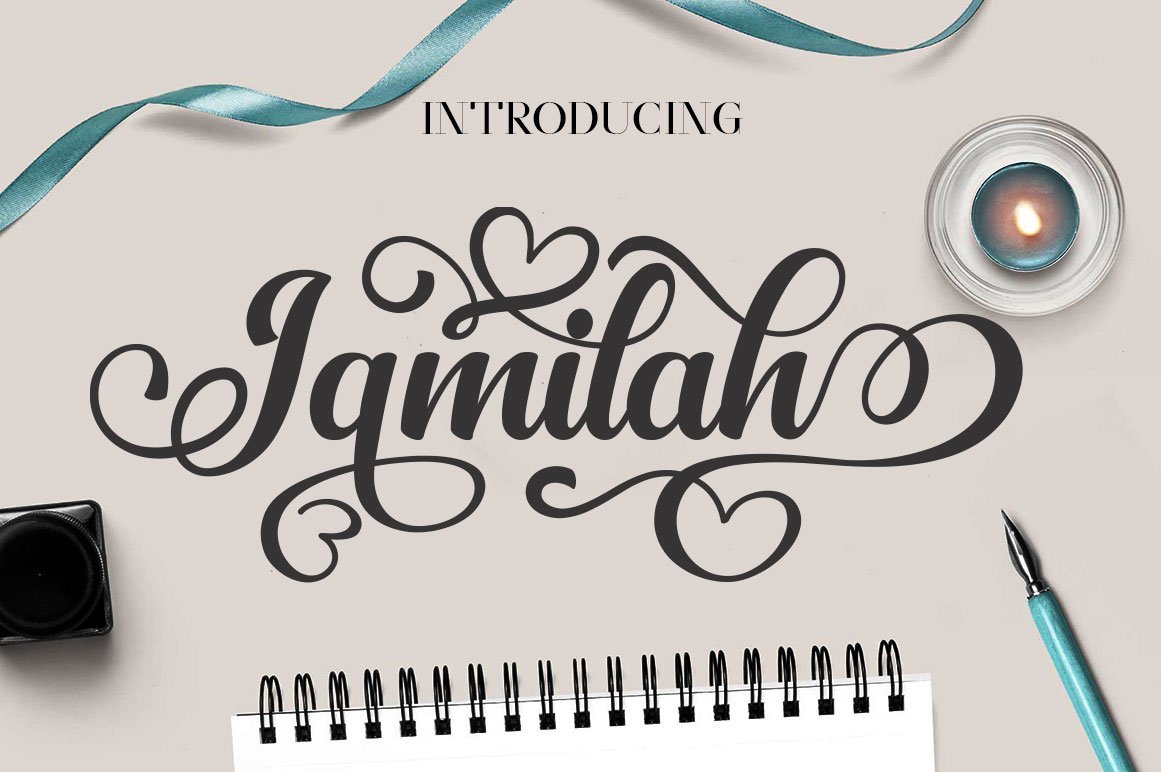
Jamilah Font
Jamilah Font is perfect for elegant wedding invitations, sophisticated greeting cards, luxury brand signatures, feminine blog headers, boutique logos, personal stationery design, cultural publications, and refined calligraphic applications.
Jamilah Font is exciting because it embodies graceful sophistication with flowing letterforms and elegant character details that create intimate personal connection while maintaining exceptional readability. Its refined personality adds warmth and cultural authenticity to any design application requiring sophisticated elegance and timeless appeal.
Jamilah Font family includes regular weight with stylistic alternates and elegant variations, providing designers with comprehensive options for creating sophisticated typography solutions that project cultural refinement and personal distinction.
Jamilah Font Free Download provides access to premium typography that establishes cultural sophistication and elegant authenticity. This distinguished typeface demonstrates exceptional craftsmanship through its graceful character construction and balanced proportions that enhance brand prestige while maintaining sophisticated readability. The font's elegant character makes it particularly suitable for cultural institutions, luxury brands, wedding professionals, and boutique businesses seeking to establish refined visual identity that resonates with audiences appreciating cultural elegance and personal sophistication.
Design professionals consistently choose Jamilah Font for projects requiring cultural authenticity and elegant appeal. Its sophisticated character works magnificently in cultural events, luxury hospitality venues, boutique branding, and upscale marketing campaigns where cultural refinement and elegant personality drive audience engagement. The font's graceful nature creates memorable brand experiences that communicate heritage and cultural distinction.
The Jamilah Font download package includes stylistic alternates, elegant variations, and cultural symbols that enhance its sophisticated appeal and design versatility. This comprehensive collection ensures professional results in refined design projects requiring authentic elegant typography. The font performs exceptionally across both digital and print applications where its graceful details and sophisticated proportions create significant cultural value and elegant distinction.
Creative teams appreciate Jamilah Font's ability to communicate cultural authenticity and elegant sophistication in competitive luxury markets. Its refined styling transcends contemporary design trends while maintaining the grace required for cultural positioning, making it an essential tool for organizations seeking to establish lasting cultural connections through superior elegant typography and exceptional sophisticated communication.